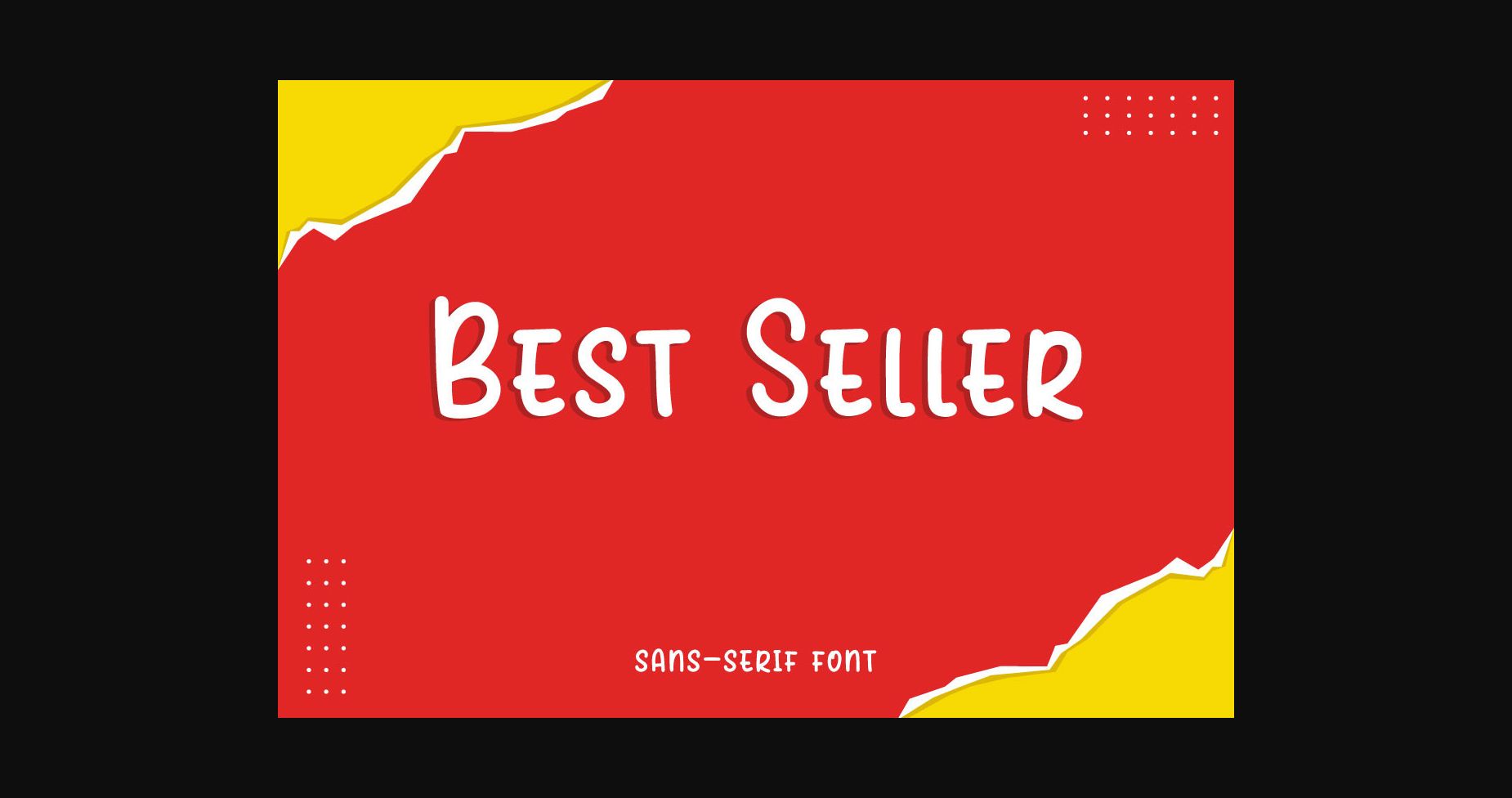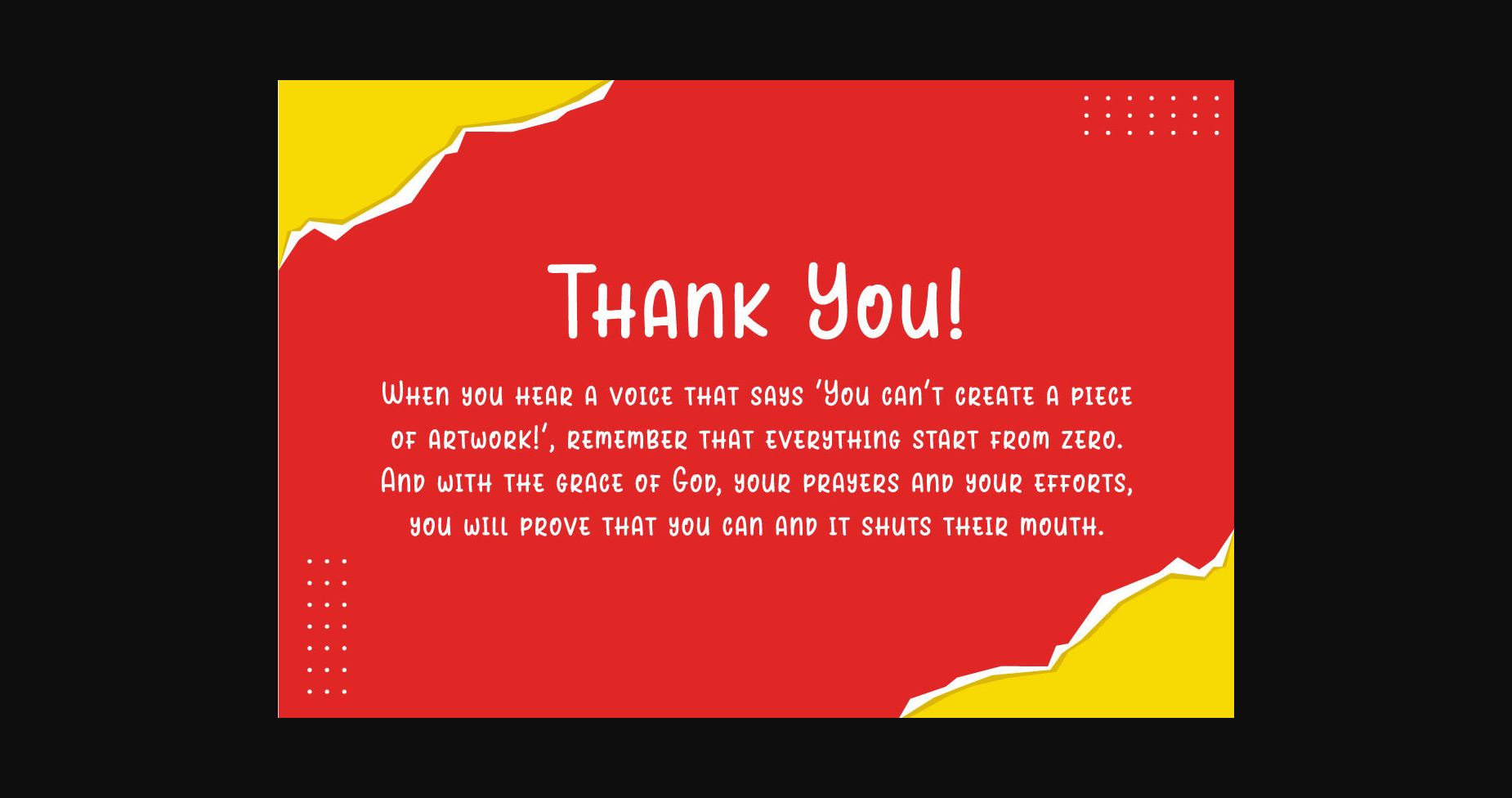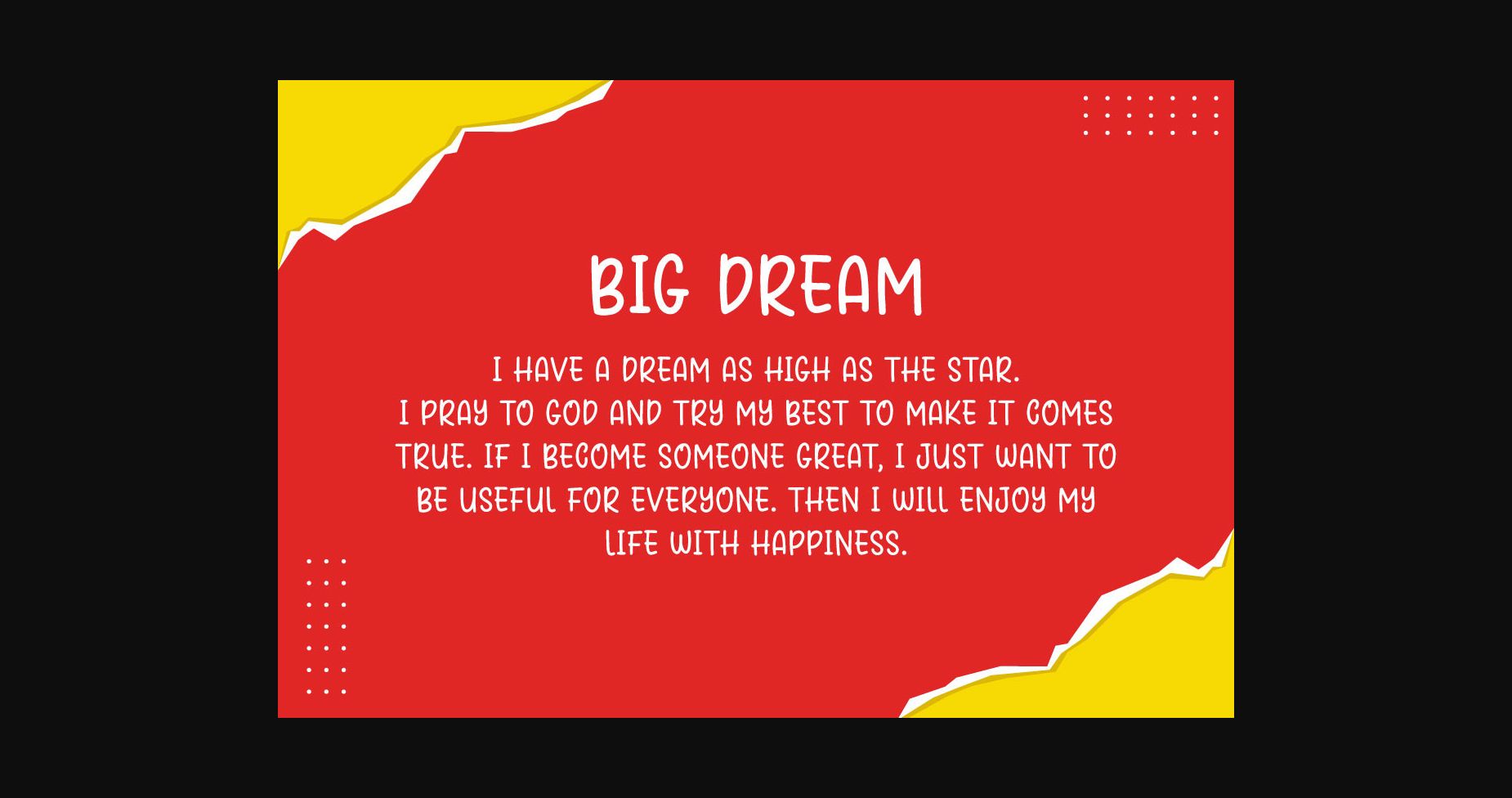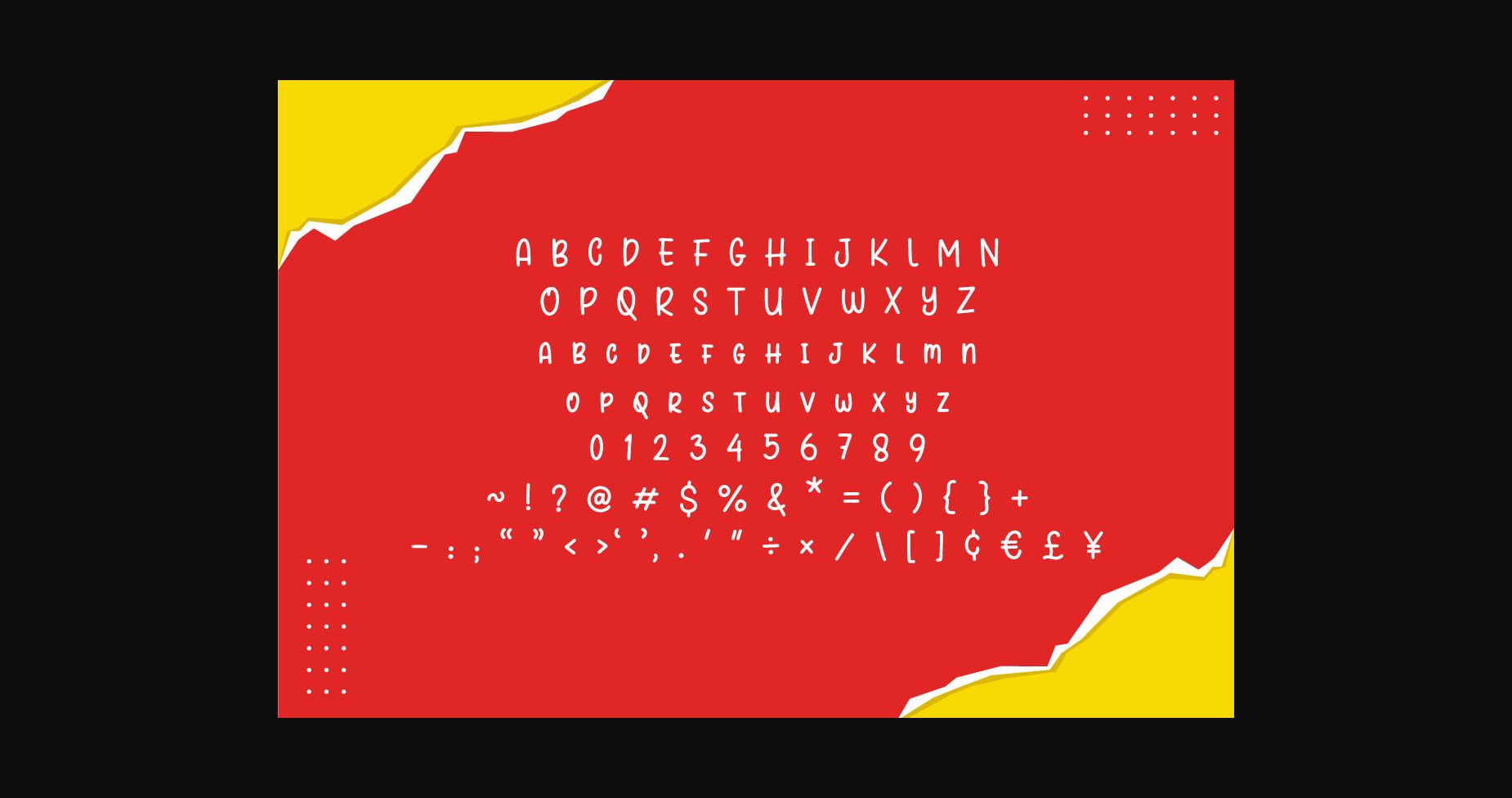
About Best Seller Font
Best Seller is a modern, minimalist handwritten sans serif font. Add it confidently to your creative projects and you will love the results!